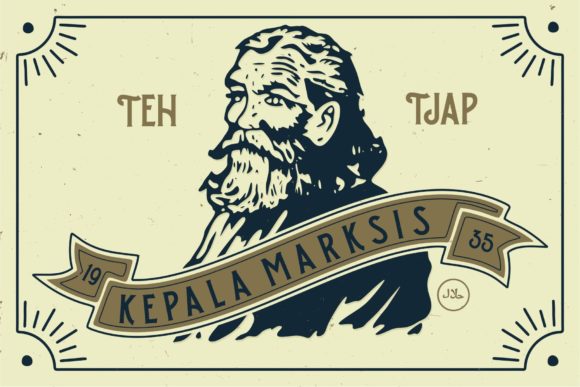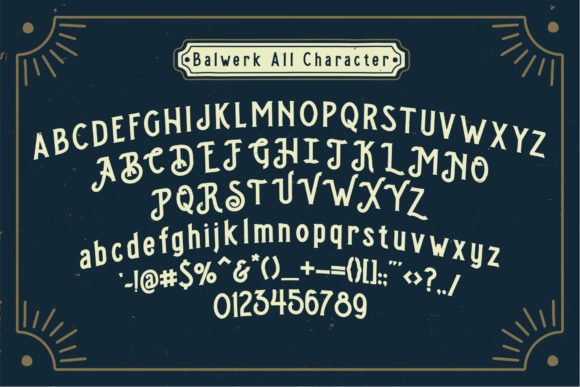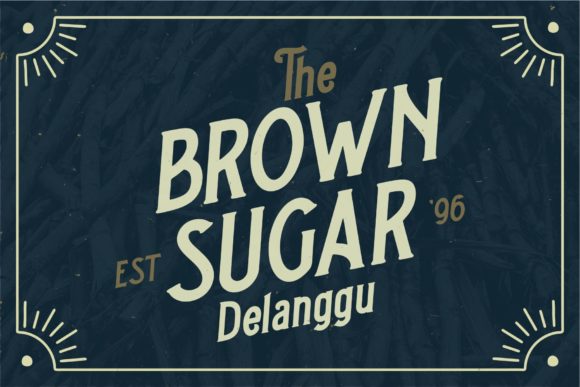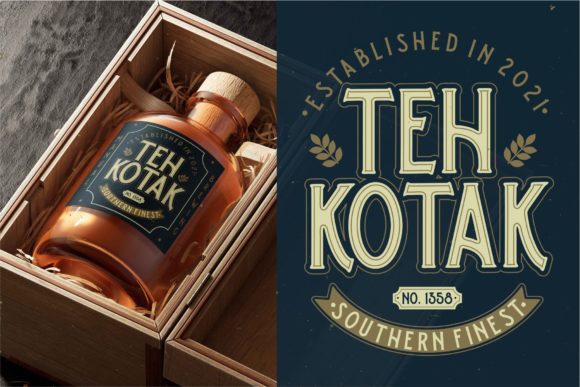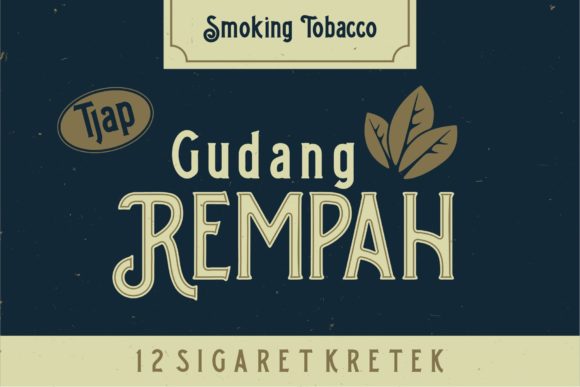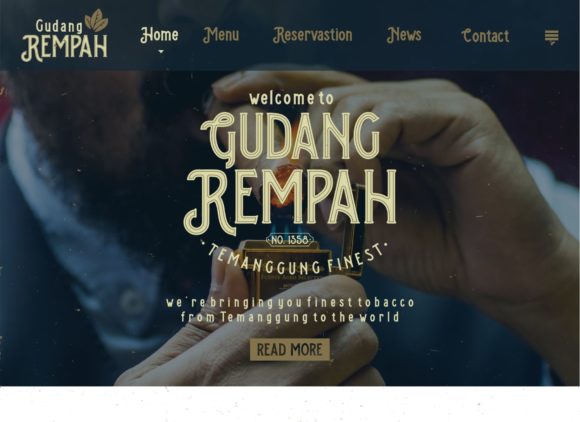
Adding the Perfect Vintage Touch: Balwerk Font
Have you ever stumbled upon an old, dusty typewriter or a vintage book in a thrift store, and felt an instant urge to create something with the same nostalgic charm? That’s exactly what inspired the creation of the Balwerk Font, a beautifully crafted, vintage-styled serif font that’s perfect for designers who want to add a touch of elegance and sophistication to their projects.
With its intricate details and classic flair, the Balwerk Font is designed to transport you back in time, to an era when typography was an art form. This stunning font is not just a pretty face, but also PUA encoded, making it easy to access all glyphs and swashes with ease. Whether you’re a graphic designer, a writer, or a social media influencer, the Balwerk Font is an invaluable addition to your toolkit, offering endless possibilities for creative expression.
Key Features of Balwerk Font
- Unique Characteristics: Balwerk Font features a unique blend of modern and vintage elements, with intricate details and ornate flourishes that set it apart from other fonts.
- Font Styles: The font family includes multiple styles, including Regular, Bold, Italic, and Bold Italic, providing users with a range of options for different design applications.
Review of Balwerk Font
Overall, I think Balwerk Font is a solid addition to any designer’s toolkit, but it’s not without its quirks. Here’s what I like about it:
- ✨ The font’s unique blend of modern and distressed elements creates a captivating visual experience.
- ✨ Balwerk’s large x-height makes it easy to read, even in smaller font sizes.
- ✨ The font’s versatility allows it to work well in a variety of applications, from digital displays to print materials.
However, I do have some reservations:
- ⚠️ The font’s more distressed elements can sometimes feel inconsistent, making it difficult to achieve a cohesive look.
- ⚠️ The font’s character set is limited, which may not be ideal for projects that require a wide range of languages or special characters.
- ⚠️ Some users may find the font’s bold weight too aggressive, which can make it difficult to read in certain contexts.
Overall, I think Balwerk Font is a great choice for designers who want to add some visual interest to their projects without going overboard. With a little finesse, it can be a powerful tool in your design arsenal.
Getting the Most Out of Balwerk Font
To get the most out of Balwerk Font, try the following:
- Use Balwerk Font in combination with other fonts for a unique look.
- Pay attention to font alignment and spacing for a polished design.
Balwerk Font is suitable for:
- Designing logos and branding materials.
- Creating flyers and brochures.
- Adding a unique touch to presentations and documents.
Alternatives to Balwerk Font
Montserrat is a sans-serif font designed for urban environments. It is highly legible and suitable for body text and headings. Montserrat is a great alternative to Balwerk Font when you need a clean and modern font for digital products or websites.
Comparison to Balwerk Font: Montserrat is more geometric and has a stronger x-height, making it more suitable for digital use. It also has a wider range of weights and styles, making it more versatile than Balwerk Font.
Abril Fatface is a high-contrast serif font with a classic feel. It is suitable for headings, titles, and other display text. Abril Fatface is a great alternative to Balwerk Font when you need a elegant and sophisticated font for print materials or luxury brands.
Comparison to Balwerk Font: Abril Fatface has a more traditional feel and is better suited for print materials. It also has a more dramatic contrast between thick and thin strokes, making it more eye-catching than Balwerk Font.